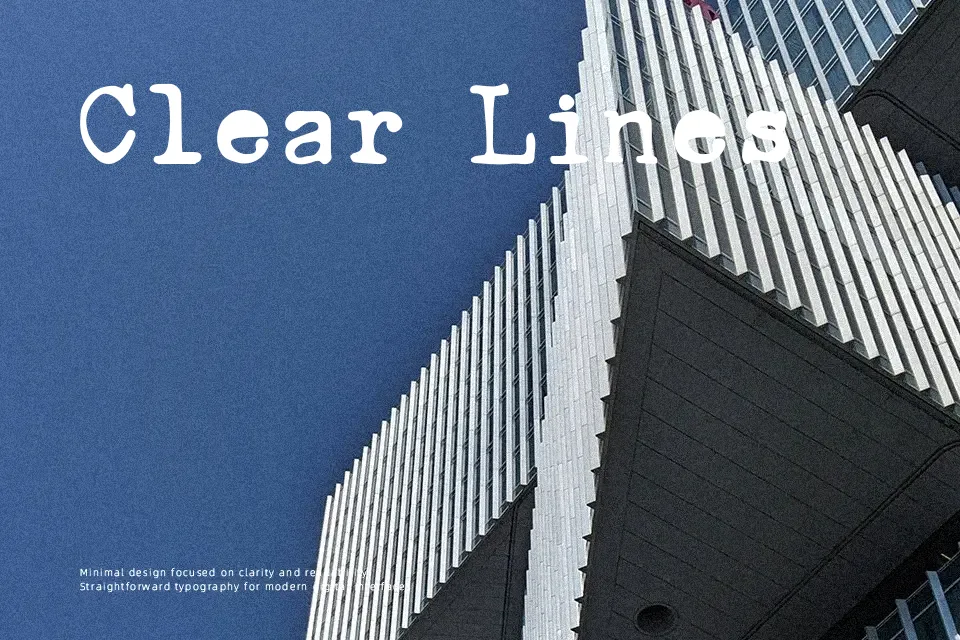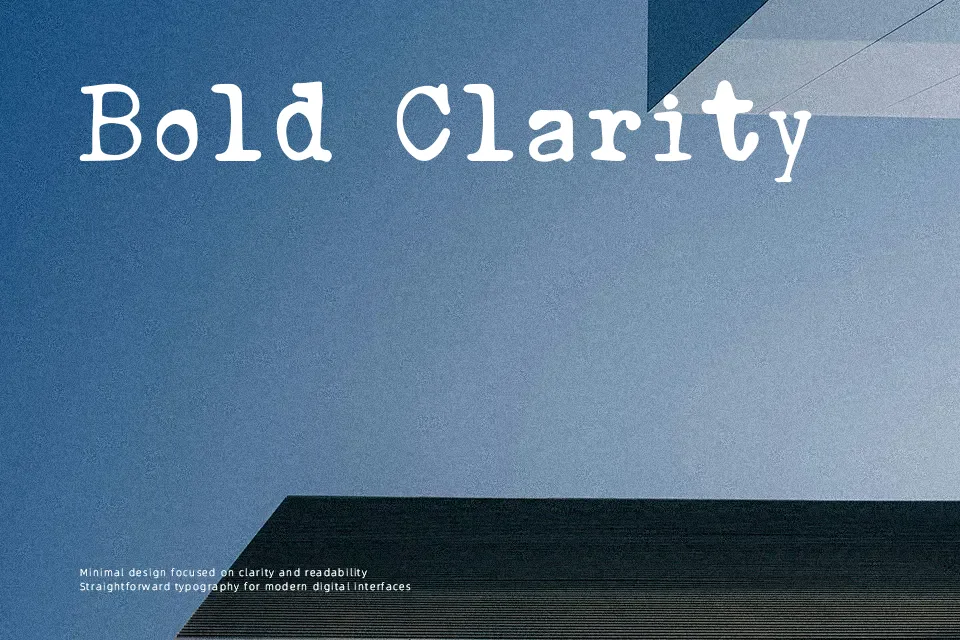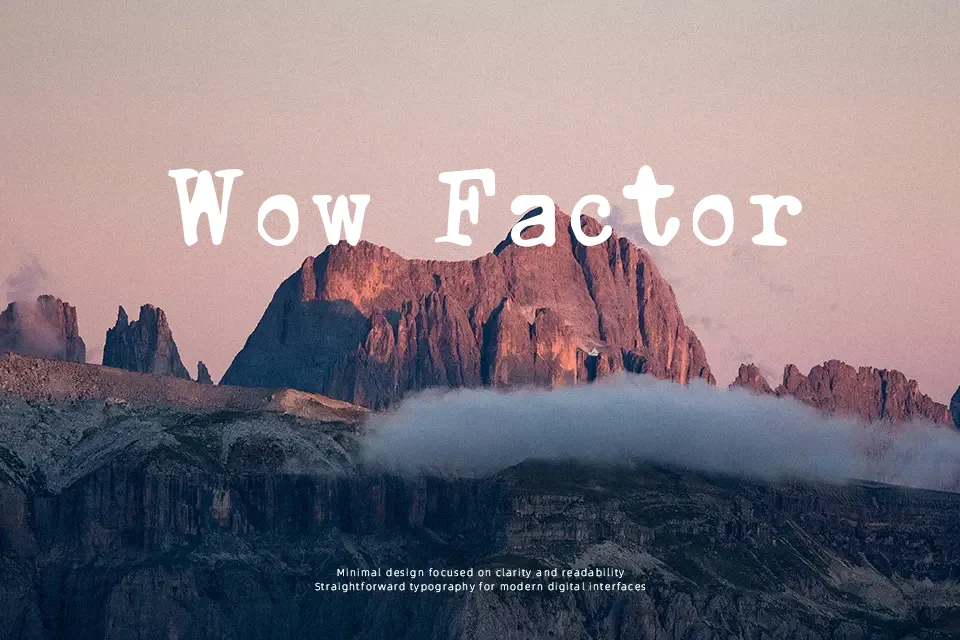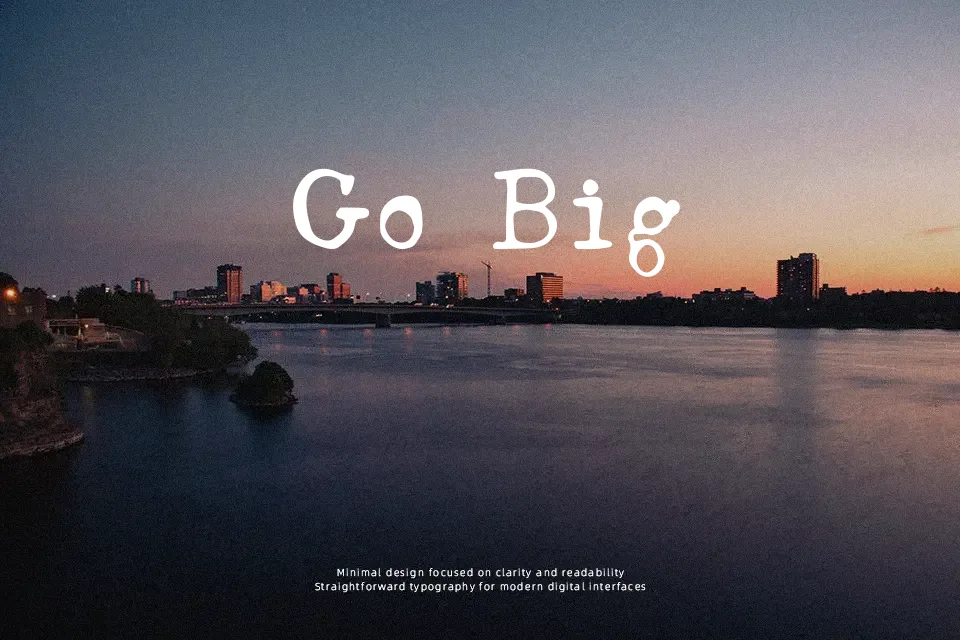
Ana’s Rusty Typewriter Font
Designed by Ana
Roughness is the point here. Each character in Ana’s Rusty Typewriter carries the worn, slightly offset quality you’d expect from a decades-old mechanical typewriter — uneven stroke weight, subtle ink bleed, and the faint misregistration that makes type feel physical rather than digital. The monospaced rhythm reinforces the machine-written aesthetic, and the full Latin character set with accents makes it usable across multiple languages. It works best when set large, where the textural detail reads clearly — think retro zine headers, vintage recipe cards, or horror story title treatment. At small sizes or in dense body text blocks, the deliberate roughness turns into visual noise rather than charm. Anyone expecting clean legibility at 10–12pt will be disappointed; this is a display-weight personality font, not a workhorse.
– Vintage poster and flyer headlines
– Retro editorial section titles
– Halloween or horror-themed project headers
– Personal zine or journal cover text
– Body text or long-form reading at small sizes
– Corporate reports or professional documents
– UI labels or navigation text
– Clean minimal design contexts
Perfect for branding, editorial, and halloween, with a dark and decorative style.